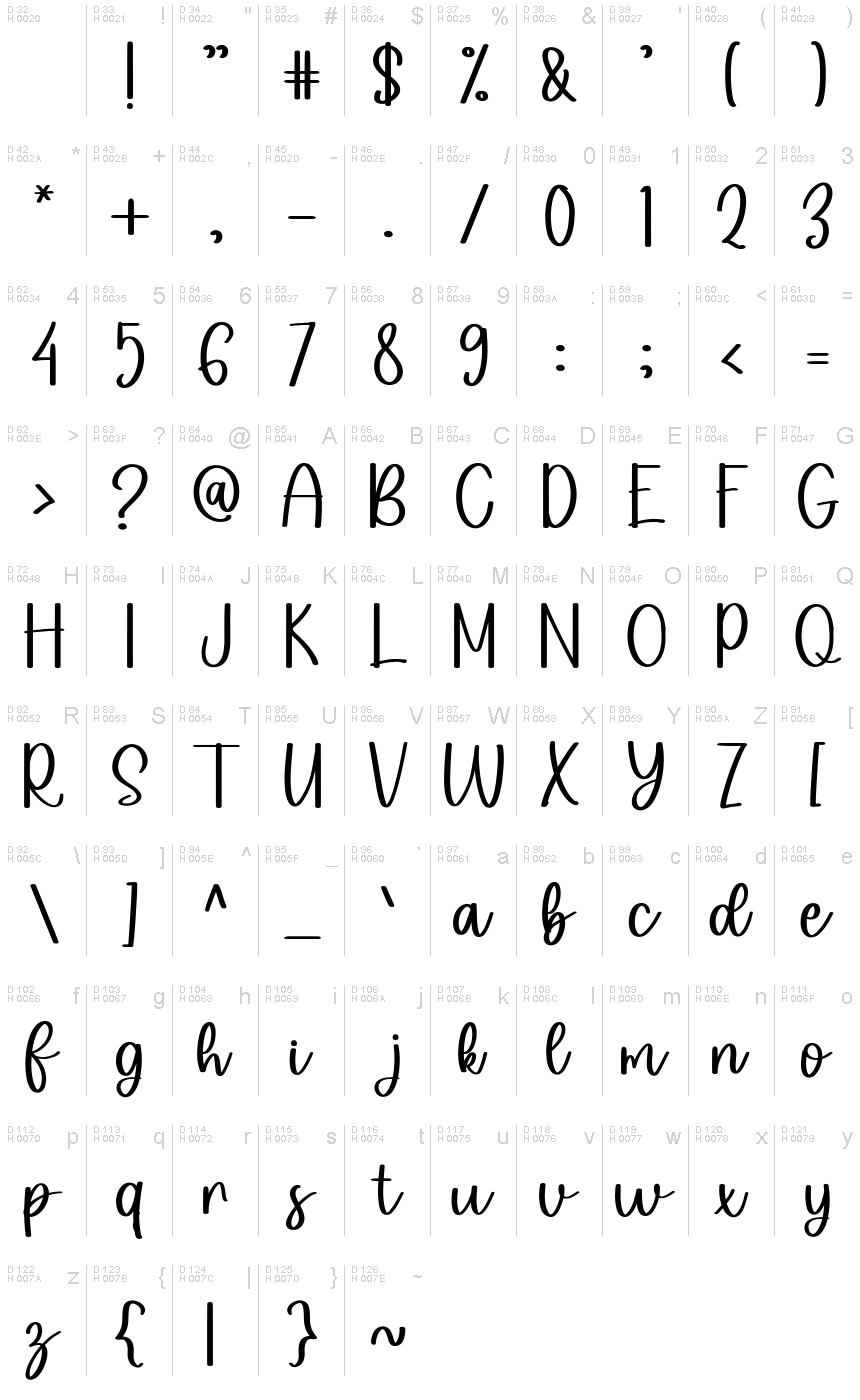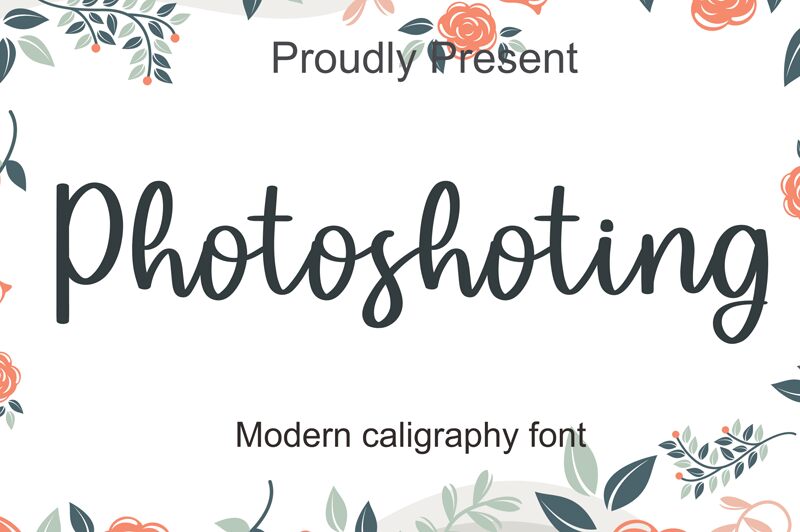
Photoshoting
Photoshooting font by Erlina Graphic is a lively and spontaneous handwritten typeface that wears authenticity beautifully. Its magical, free-spirited style translates into casual and informal ideas with smooth transitions between the letters. Yet, being readable isn’t an issue as it balances simplicity with elegance within its versatile letterforms. Each character in Photoshoot feels like a gentle stroke of a brush.
Relaxed and directly influenced by human flow, Photoshoot can be used for digital signatures, logotypes, wedding invitations, greeting cards for special occasions like anniversaries or birthdays; product packaging for homemade goods; book covers or children’s books; and engaging Instagram posts as well as other social media ideas.